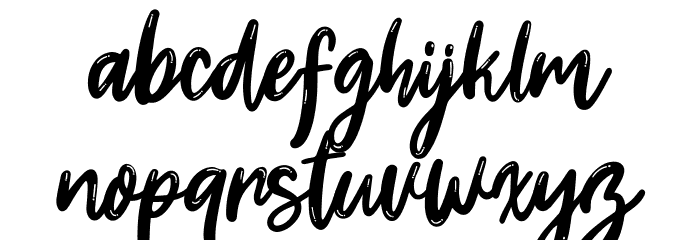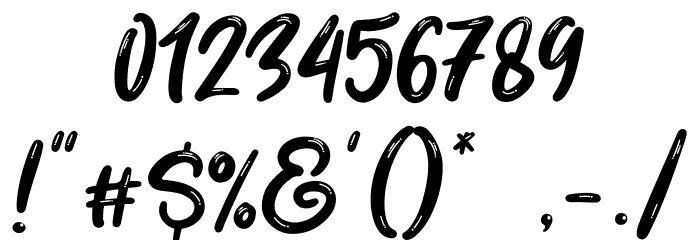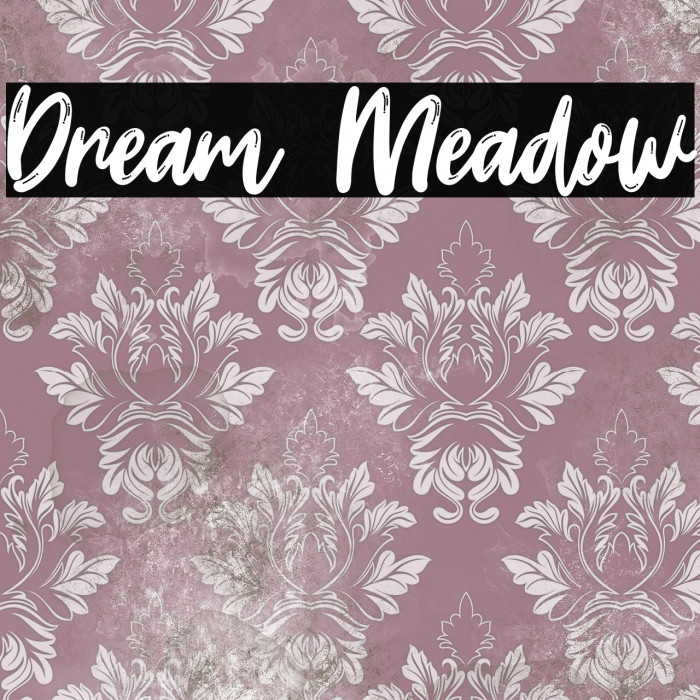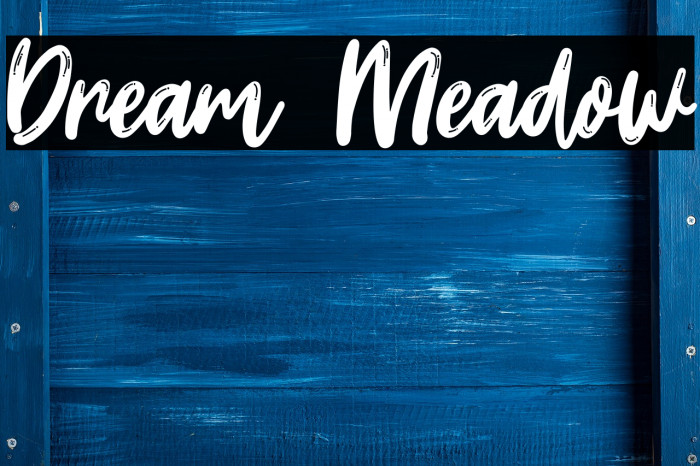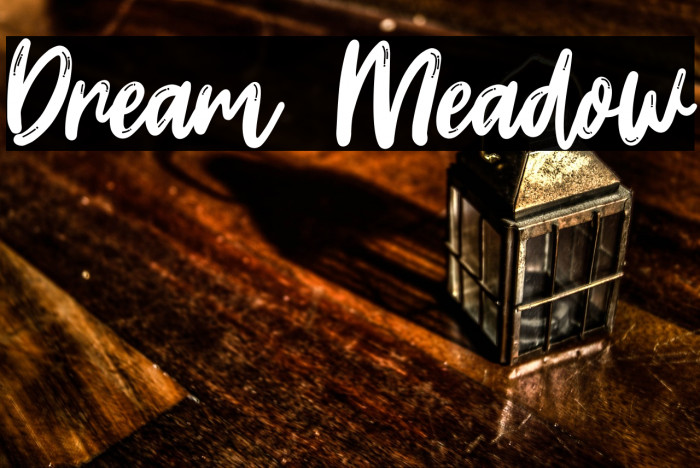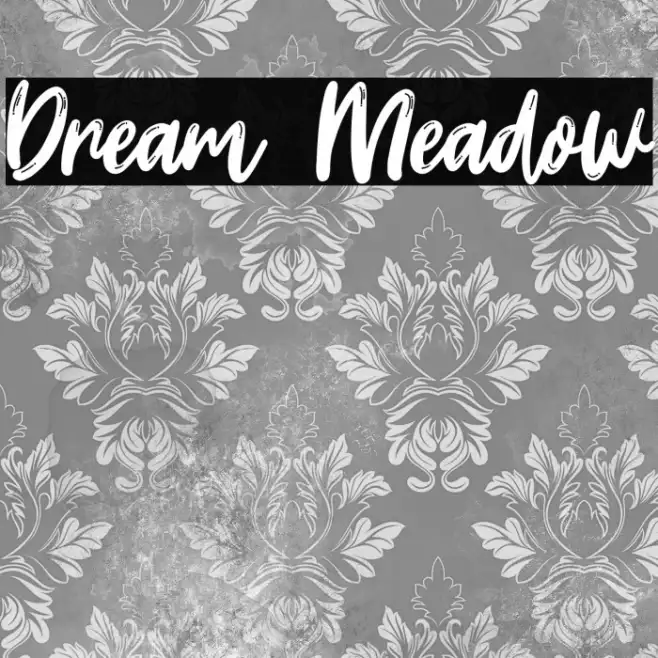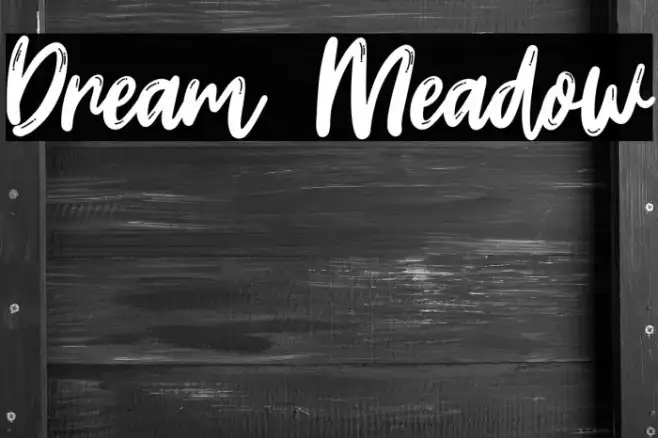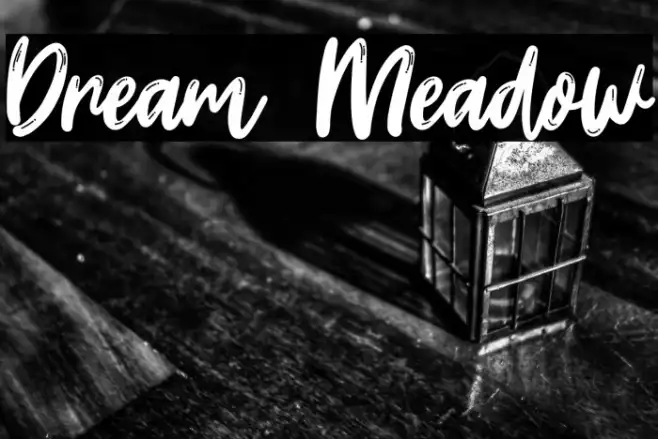
Dream Meadow Font
This font exudes a lively and energetic vibe with its bold, brush-like strokes. The uppercase letters are dynamic and slightly slanted, giving a sense of movement and fluidity. The lowercase letters maintain this energetic style, with smooth curves and a consistent flow. Numbers and special characters are equally expressive, maintaining the font's cohesive style. The overall appearance is both artistic and modern, making it suitable for creative and informal applications.
A bold, brush-style font with dynamic and fluid strokes.
- Proposed Projects: Ideal for branding, posters, social media graphics, and any project requiring a lively and artistic touch.